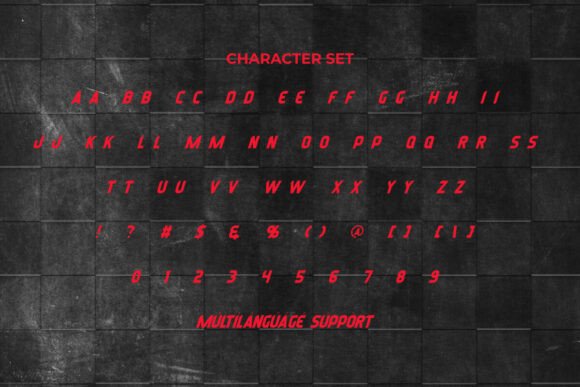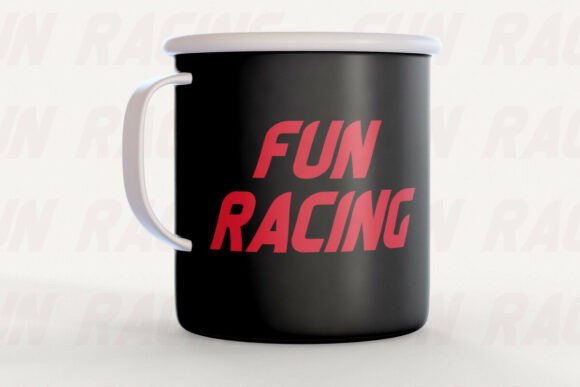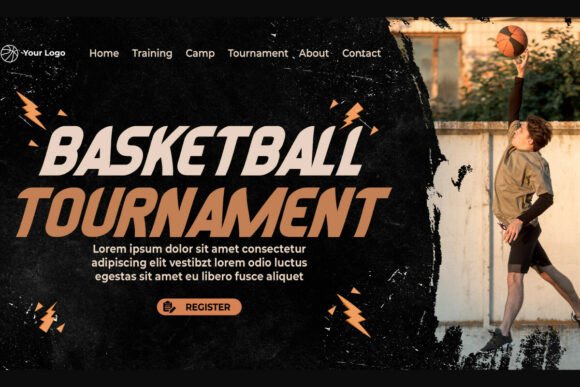
Unleash the Thrill of Speed with Fun Racing Font
Are you looking for a font that embodies the essence of high-speed racing and cutting-edge automotive design? Look no further than the Fun Racing font, a streamlined and dynamically slanted display font that captures the intensity and aesthetic of modern motorsport. In this article, we’ll dive into the features and benefits of the Fun Racing font, and explore how it can elevate your design projects to new heights.
The Design of Fun Racing Font
The Fun Racing font is characterized by its dramatic italic posture and aerodynamic, wide letterforms. This unique design conveys a sense of rapid acceleration and forward momentum, making it perfect for projects that require a sleek, powerful, and futuristic edge. The font’s streamlined design ensures that it remains clear and legible, even at high speeds – or in large-format applications like vehicle wraps, event banners, and video game titles.
Perfect for High-Octane Projects
The Fun Racing font is engineered for speed, but it’s not just about looks – it’s also highly functional. Its clarity and impact make it ideal for a wide range of applications, from automotive design and extreme sports branding to video game titles and event promotions. Whether you’re designing a logo, brochure, or website, the Fun Racing font is sure to grab attention and leave a lasting impression.
Key Features of Fun Racing Font
- Dramatic italic posture: Creates a sense of dynamic movement and energy
- Aerodynamic, wide letterforms: Conveys speed and forward momentum
- Clear and legible: Ensures impact and readability in large-format applications
- Highly versatile: Suitable for a wide range of design projects, from automotive to video games
Why Choose Fun Racing Font?
So why choose the Fun Racing font for your next design project? Here are just a few compelling reasons:
- Instant recognition: The Fun Racing font is designed to grab attention and create a lasting impression
- Flexibility: Use it for everything from logos and branding to headlines and titles
- Uniqueness: Stand out from the crowd with a font that’s truly one-of-a-kind
Design Inspiration with Fun Racing Font
The Fun Racing font is perfect for designers and crafters who want to add a touch of high-octane excitement to their projects. Here are a few ideas to get you started:
- Vehicle wraps: Create eye-catching vehicle wraps that showcase your brand or design
- Event banners: Design bold and attention-grabbing event banners that set the tone for your event
- Video game titles: Add a touch of speed and excitement to your video game titles and marketing materials
- Automotive branding: Create sleek and sophisticated branding for automotive clients or projects
In conclusion, the Fun Racing font is a powerful and versatile display font that’s perfect for designers and crafters who want to add a touch of speed and excitement to their projects. With its dramatic italic posture, aerodynamic letterforms, and clear legibility, this font is sure to grab attention and leave a lasting impression. Whether you’re working on a high-octane project or just want to add a bit of flair to your design, the Fun Racing font is an excellent choice.